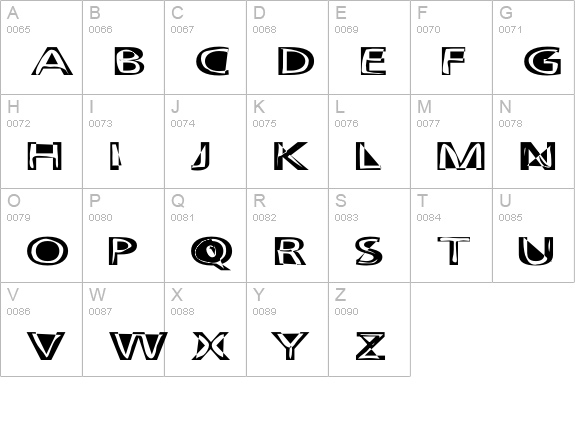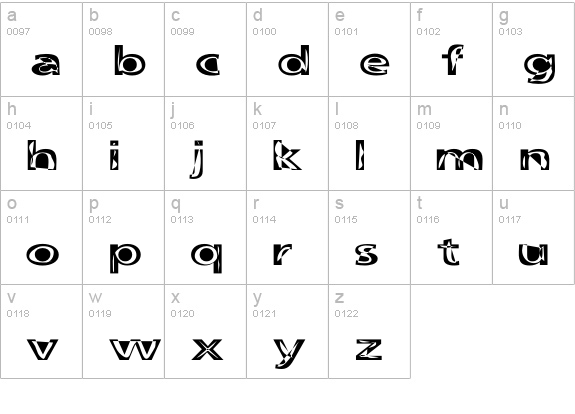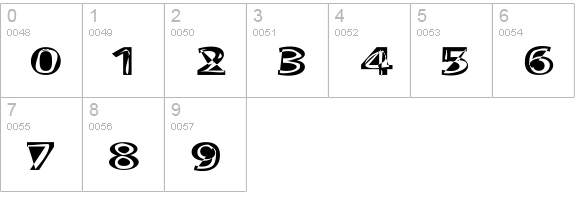
FruitbasketUpset Font Details
FruitbasketUpset font is a whimsical and playful typeface that will add a touch of fun to your designs. Designed with a quirky and hand-drawn style, this font is perfect for projects that need a cheerful and lighthearted feel. With its unique characters and charming flourishes, FruitbasketUpset font is sure to make your text stand out. Best of all, FruitbasketUpset font is available for free download at FontsMarket.com. Whether you're working on a poster, greeting card, or social media graphic, this font will bring a smile to your audience's face. Embrace the creativity and joy of FruitbasketUpset font in your next project and watch your designs come to life!